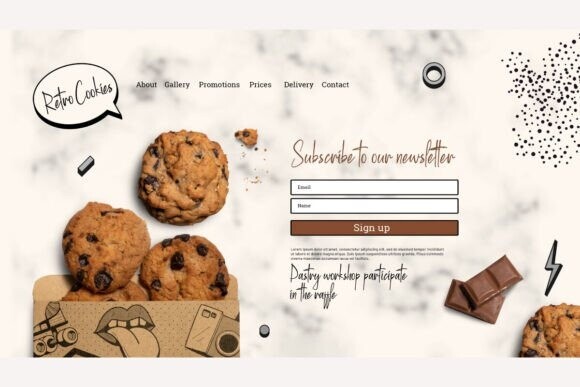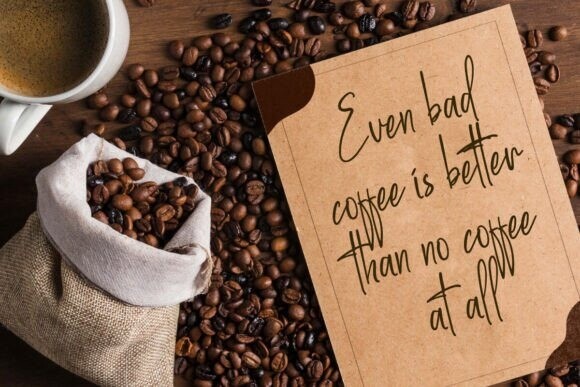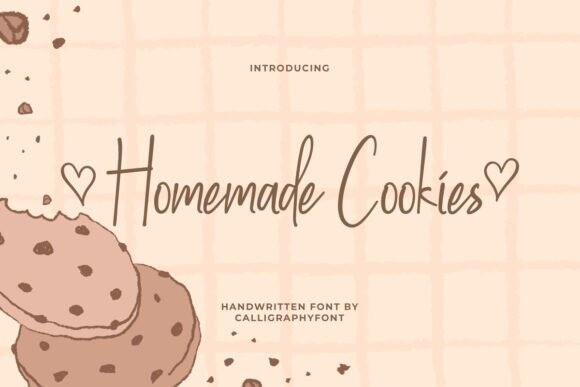
Homemade Cookies Font
Homemade Cookies Font is a thin sleek handwriting font with a sweet look, created by CalligraphyFonts. The attractive typography adapted from the concept of sweet cookies so it will suit any industry, such as accessories, bakery and cake shops, beverages, café, cooking classes, event organizers, fashion brands, florists, furniture, gifts and souvenirs, handicrafts, kids stuff, jewelry, printing, publishing, real estate, restaurant, skincare, spa salon, toy store, and many more.